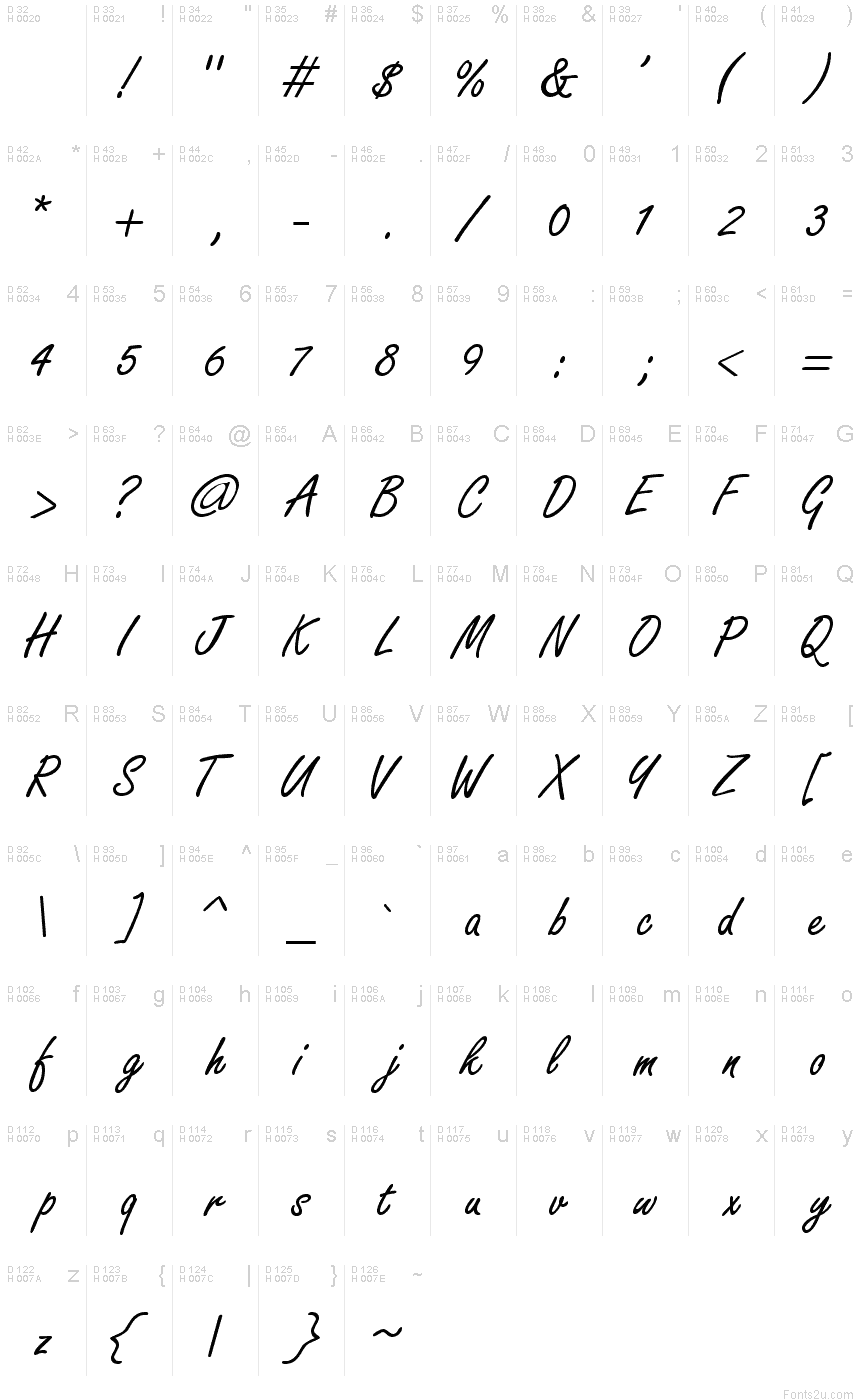
Carefree is a free calligraphic script with sweeping curves and a relaxed handwritten slant. Its changing stroke widths mimic a pointed pen, moving from fine entry lines to broad, rounded sweeps. Tall loops and extended finishing strokes give the lettering an airy, personal character.
It can turn a logo or invitation into a graceful handwritten signature, and the fluid shapes suit beauty packaging and fashion editorials. The looping forms suit romantic, celebratory, and boutique design.